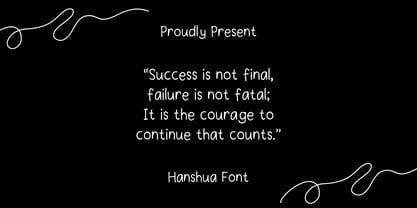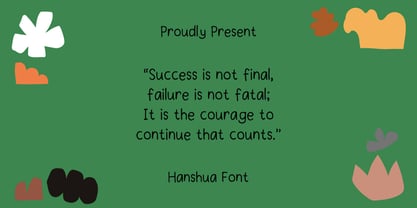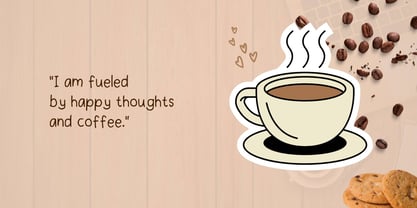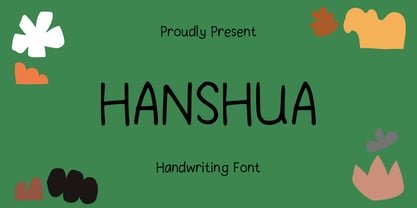
Hanshua
by Sidkia Fonts
The Hanshua Font Family was designed by and published by Sidkia Fonts. Hanshua contains 1 styles. More about this family
Hanshua Font is a charming, handwritten-style typeface that captures a soft and sincere feeling. With its smooth curves and slightly uneven baseline, the font gives a sense of personal touch and natural handwriting. The letterforms are simple yet expressive, making it ideal for emotional, heartfelt messages or family-oriented themes. It's highly legible and works well in quotes, greeting cards, journals, or any content that aims to be warm, cozy, and approachable.